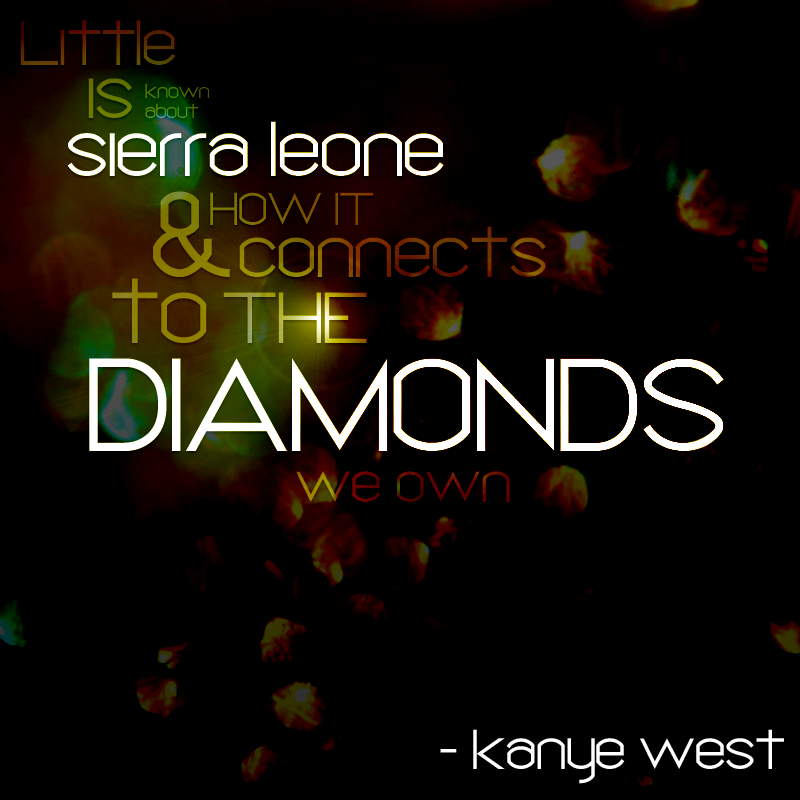
Check out my new Font Blog to stay up to see when I release new fonts! http://murafonts.blogspot.com/ ----------------------- A unique Sans Serif font for your designing pleasure. This is the most complete font that I have created, so it contains most characters and symbols. If there's any you need, feel free to let me know! I was working on this font, as I had an idea to create a font to use for Hip Hop style Titles, and my wife said that it reminded her of diamonds, thus the name DIAMANTE. This font is Bold, Interesting, and good for Body Type, as well as Large Titles, so you should be able to find alot of different applications for it. Enjoy! This is free to do with whatever you wish, personal or commercial. Just don't claim ownership, sell it, redistribute it, or be a jerk with it. It might be cool if you use the font to either credit MuraKnockout Media or Michael Muranaka, or show me how you used it! Enjoy! |